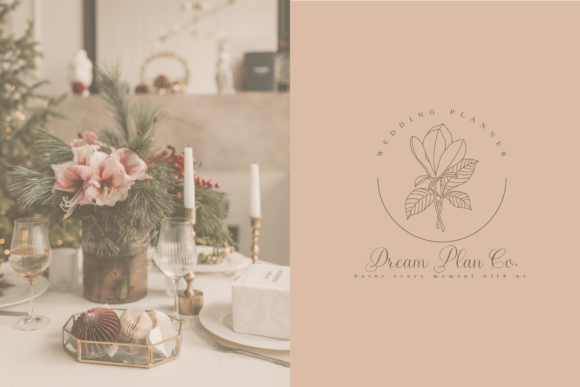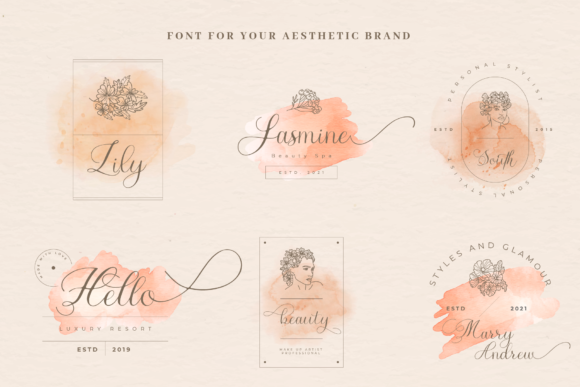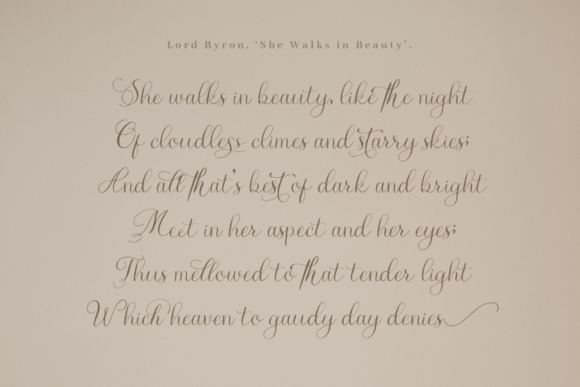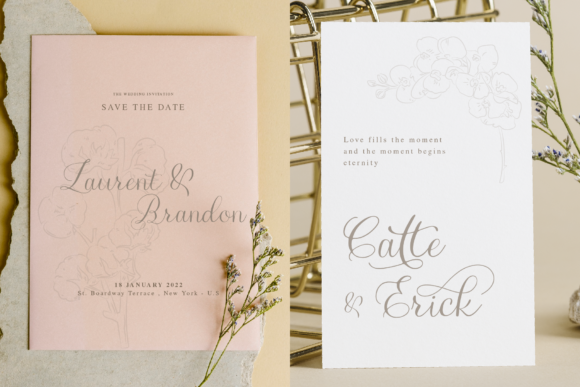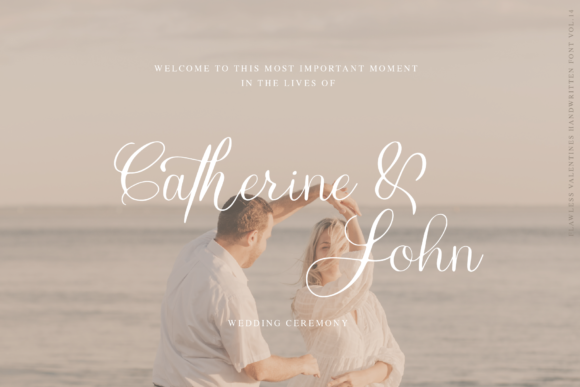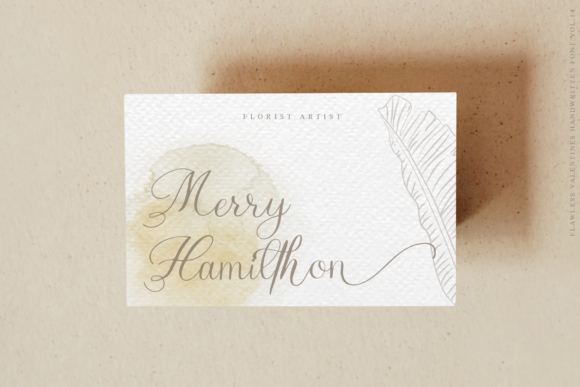
Introduction to Flawless Valentines Font
As a designer, you know that sometimes it’s the smallest details that make the biggest impact on a project. I still remember the moment I stumbled upon the perfect font to match the tone of a Valentine’s Day campaign I was working on. The client wanted something elegant, yet playful, and I knew just the thing – the Flawless Valentines Font. This beautiful handwritten font has a unique feel that adds a luxury spark to any design project.
Whether you’re working on a romantic campaign, a wedding invitation, or simply want to add a touch of whimsy to your branding, the Flawless Valentines Font is a valuable resource that’s sure to elevate your design. With its stunning impact and PUA encoded glyphs, this font is a game-changer for any creative project.
What sets the Flawless Valentines Font apart is its versatility and high quality. You can use it to create stunning designs with a transparent background, making it the perfect design resource for any project. And the best part? It’s available for free download, making it an absolute must-have for designers of all levels.
Key Features of Flawless Valentines Font
- Unique, hand-drawn design elements perfect for creative projects and romantic occasions.
- Perfect for use in digital and print-based design projects, including invitations, cards, and advertisements.
Honest Review: Flawless Valentines Font
As a designer, I’m always on the lookout for high-quality design resources to enhance my creative projects. The Flawless Valentines Font caught my attention with its elegant and sophisticated style, perfect for romantic designs.
Here are the things that work well for this font: ✨
- Beautiful, cursive script
- Perfect for Valentine’s Day and wedding designs
- Comes with a transparent background, making it easy to use in various design scenarios
However, there are some limitations to consider: ⚠️
- Limited character set, which may not be suitable for longer texts
- No bold or italic versions available
Overall, I’m impressed with the Flawless Valentines Font, and I can see it being a valuable addition to any designer’s toolkit. It’s a great choice for designers looking to add a touch of elegance to their creative projects.
The Flawless Valentines Font is perfect for creating Valentine’s Day-themed designs, such as cards, posters, and social media posts. You can also use this font for other creative projects, such as birthday cards, wedding invitations, and more.